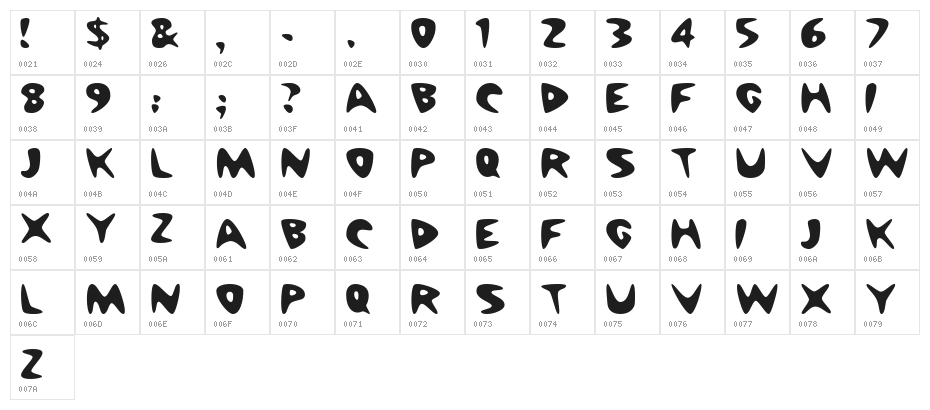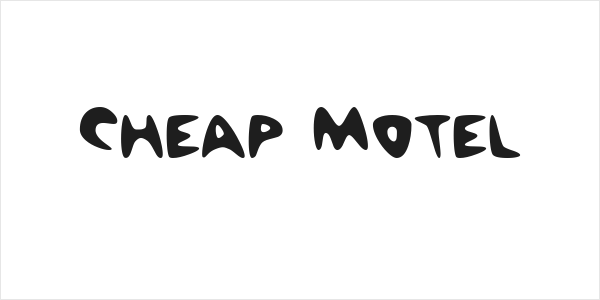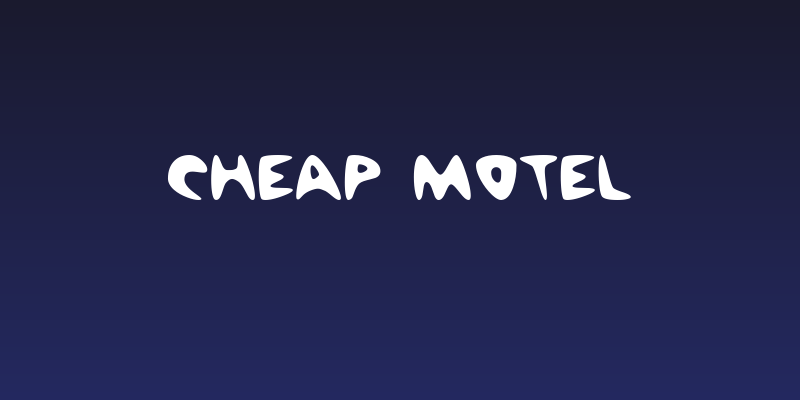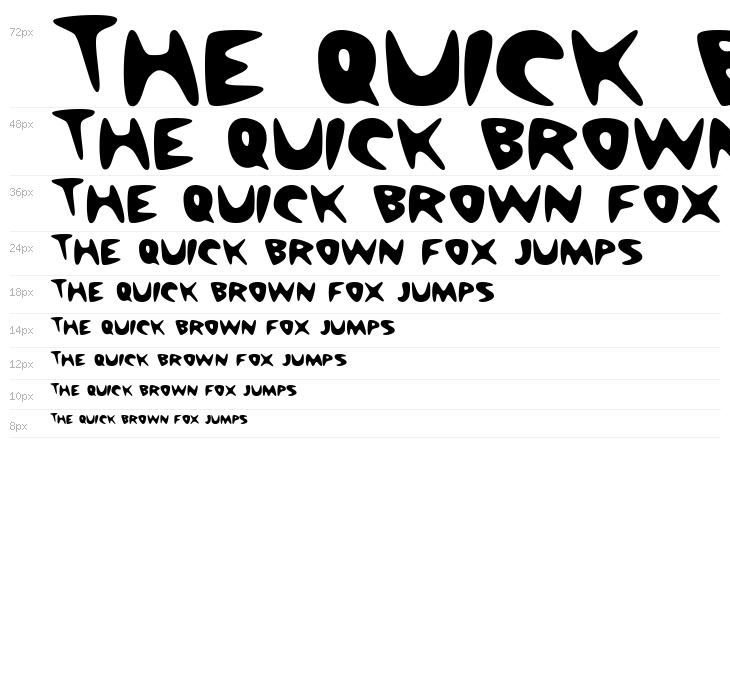
Cheap Motel Font
Cheap Motel Description
This font features a bold and playful style with exaggerated curves and a whimsical appearance. The characters are thick and rounded, giving them a friendly and approachable feel. The uppercase and lowercase letters maintain a consistent style, with a slight slant that adds to the dynamic look. Numbers and special characters follow the same design principles, ensuring uniformity across the typeface. This font is ideal for projects that require a fun and informal touch, such as children's books, playful branding, or eye-catching headlines.
| Proposed Projects | Children's books, playful branding, eye-catching headlines, posters, and informal invitations. |